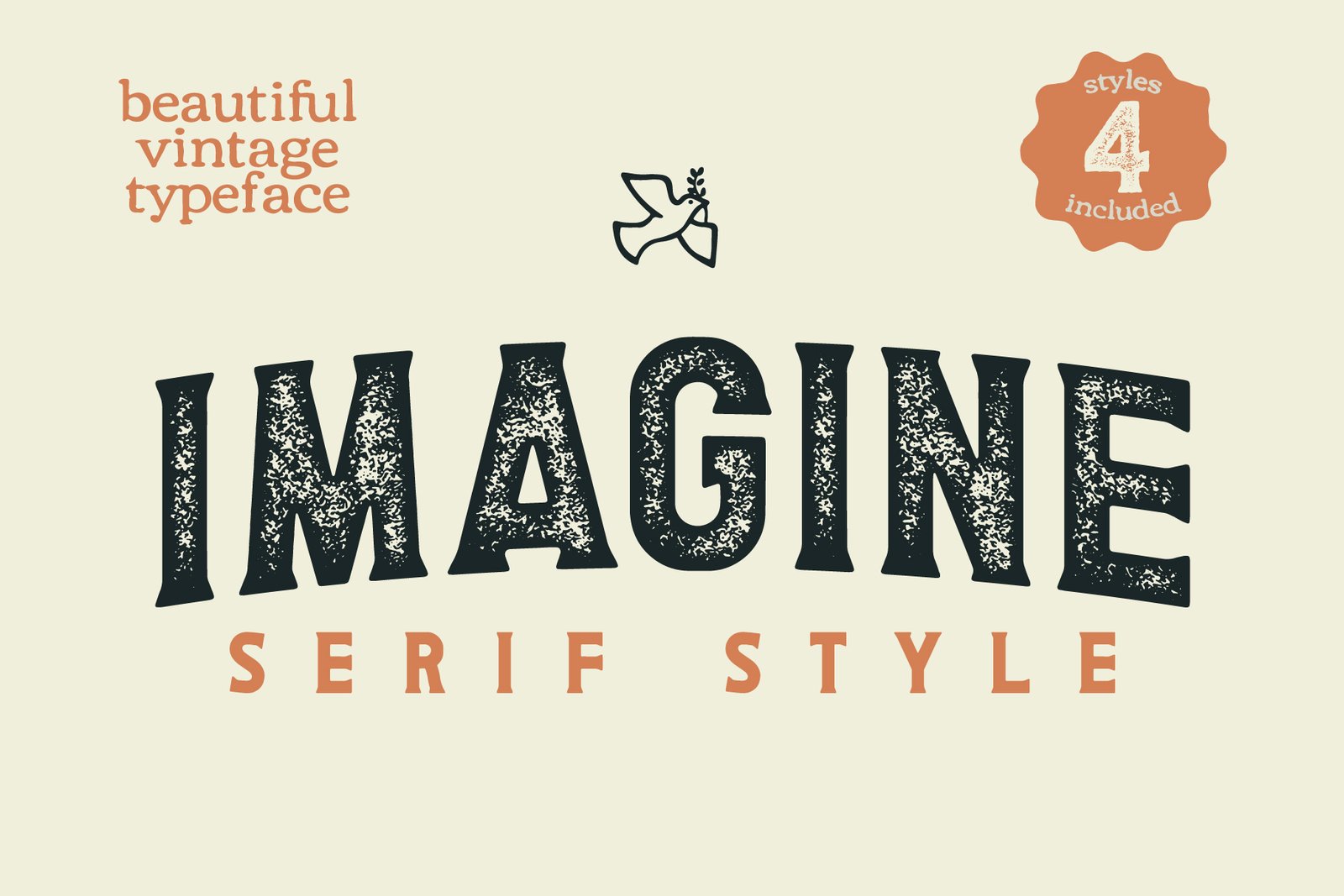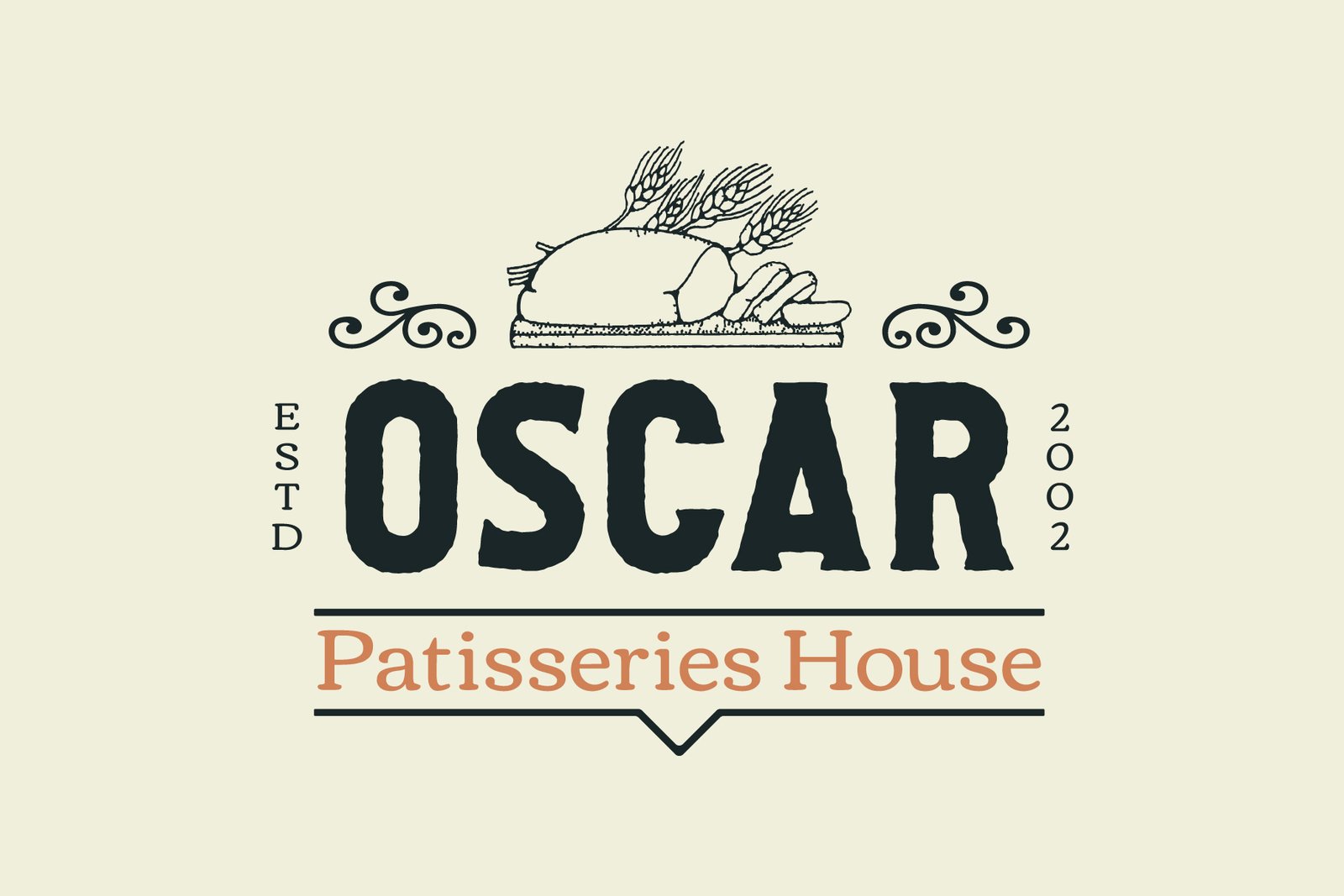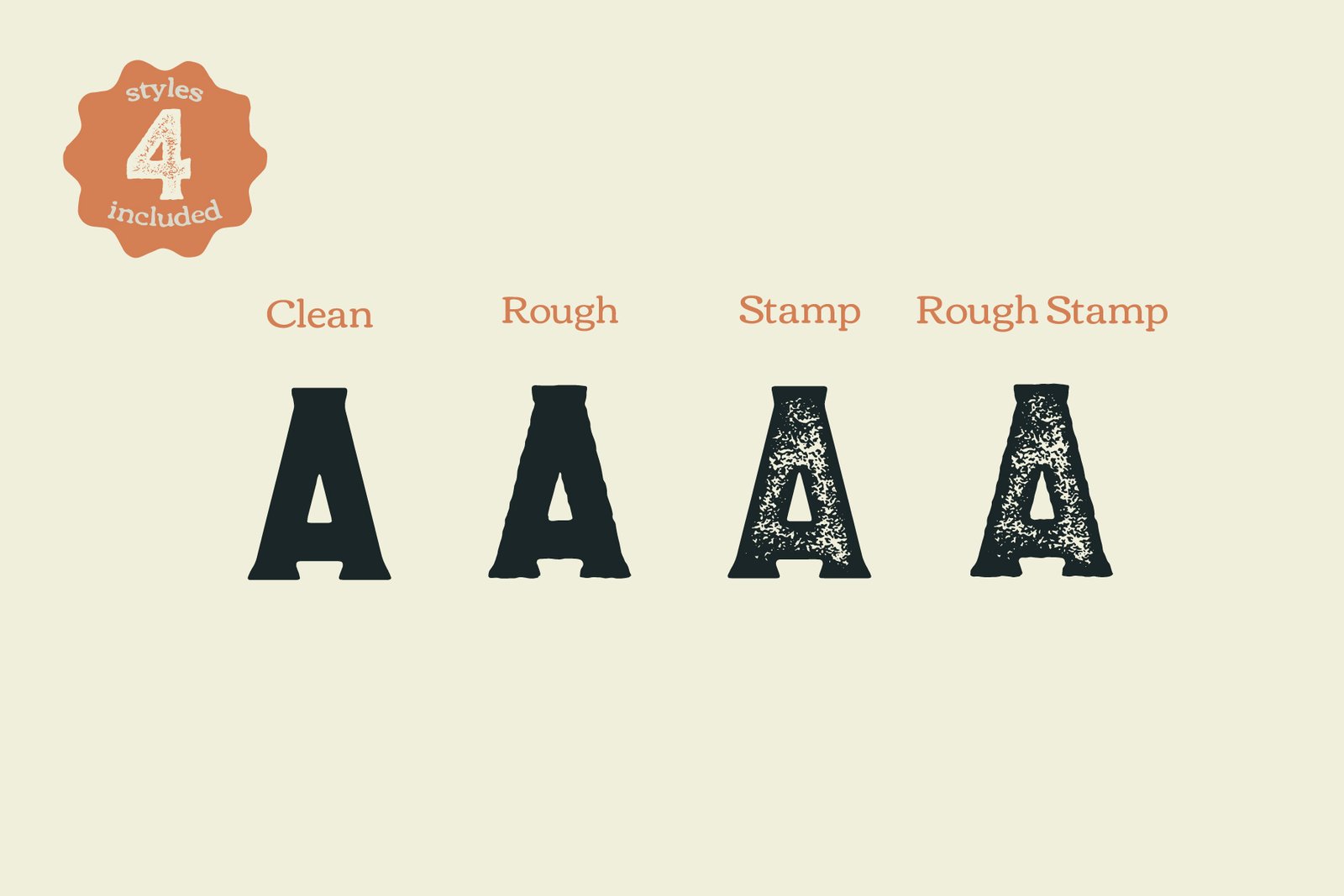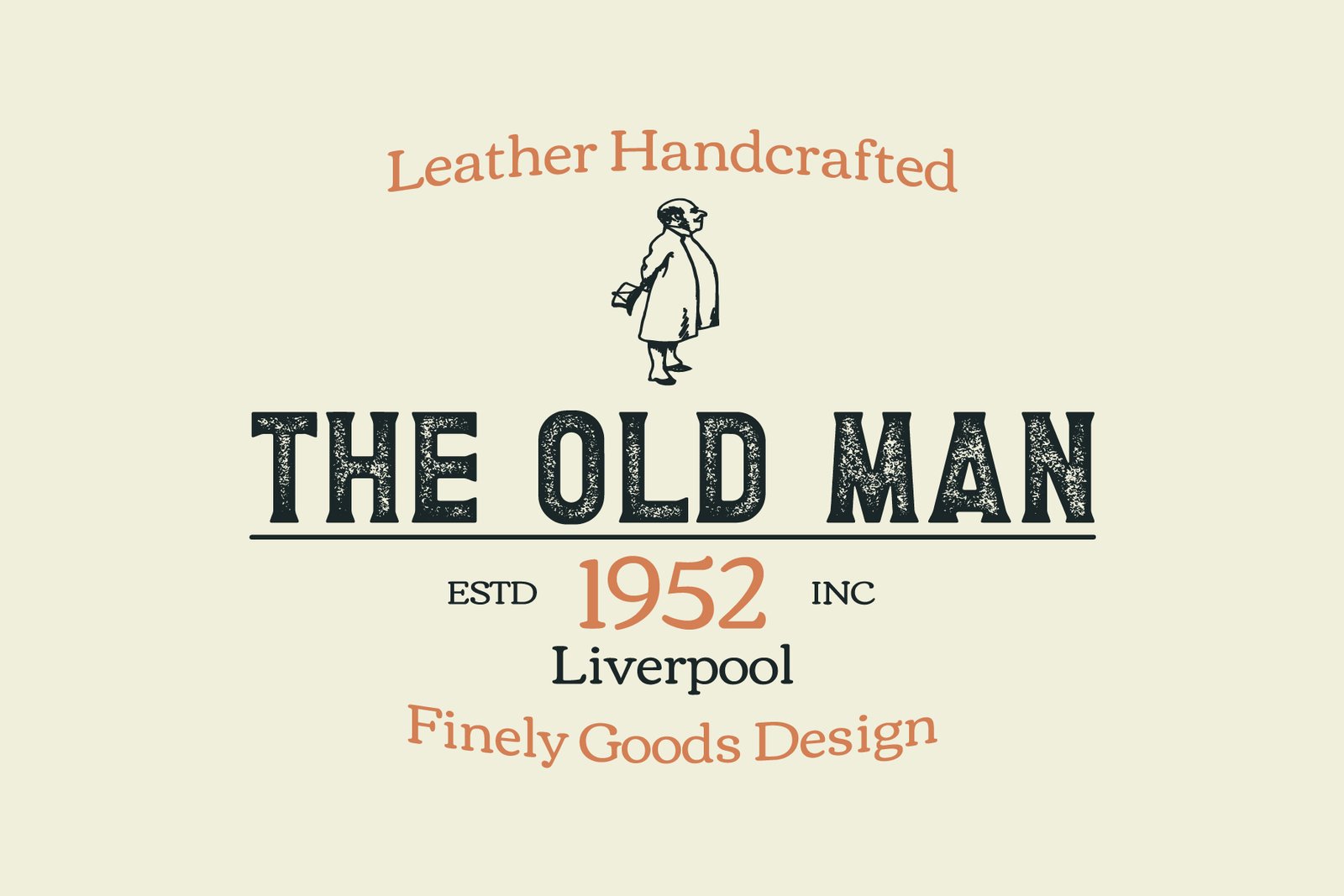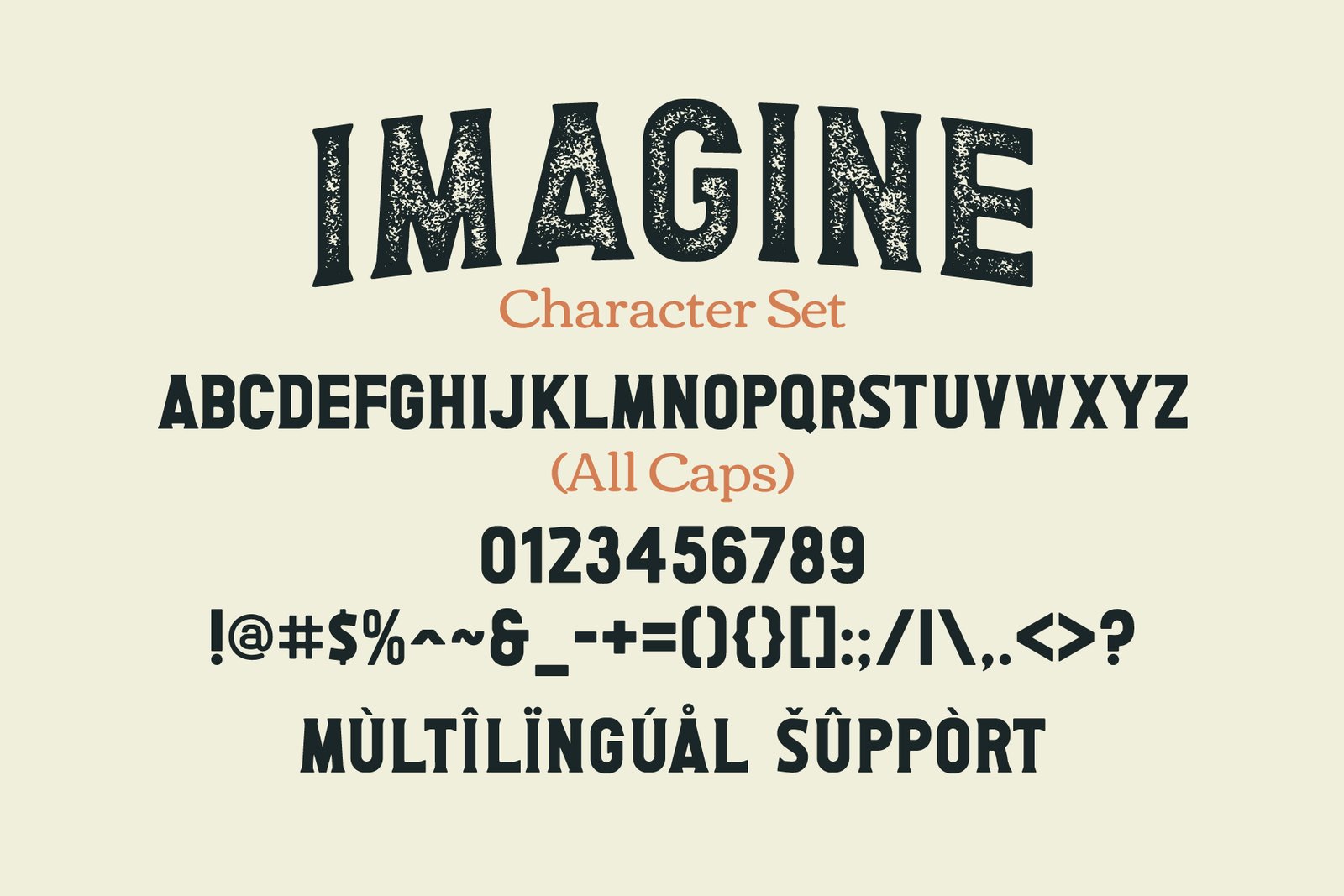
- Imagine Serif
Imagine Serif is a serif based typeface with 4 styles included (clean, rough, stamp, rough stamp). This font is perfect for branding projects, logos, labels, product packaging and more.
Features:
- A-Z all caps characters
- Symbols and punctuation
- Multilingual